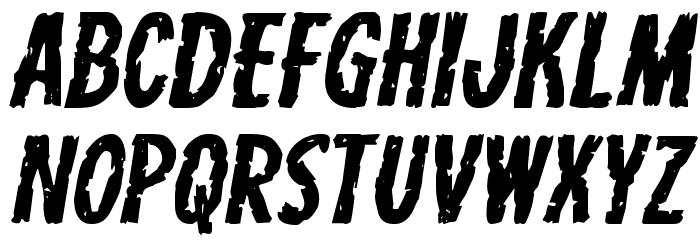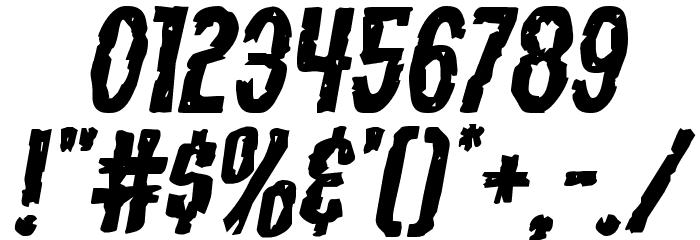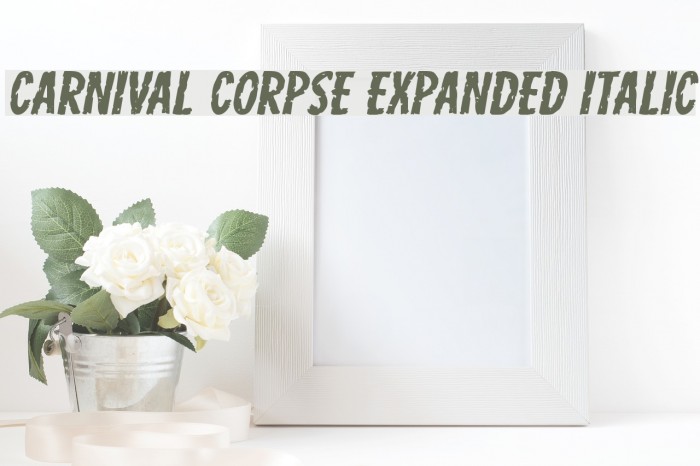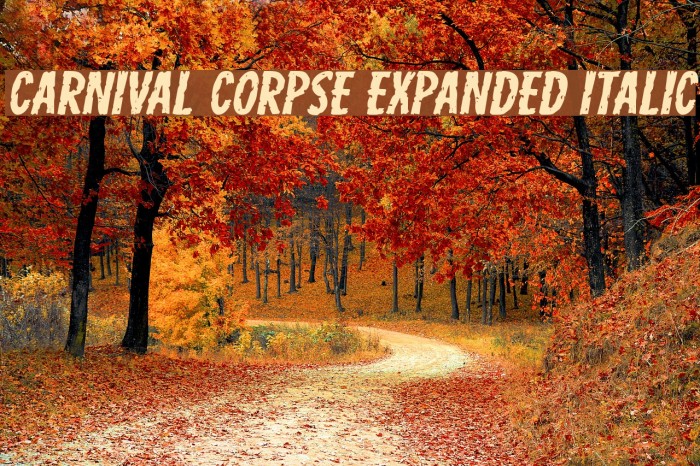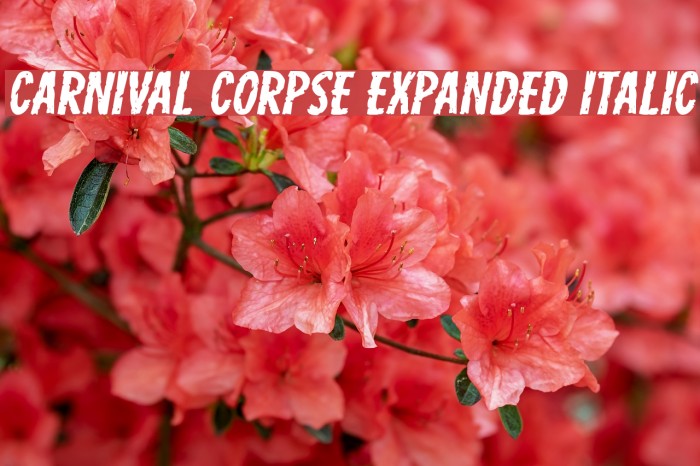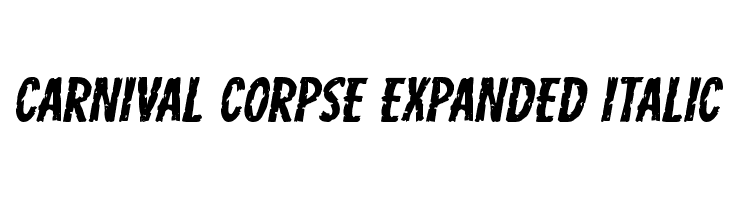
Carnival Corpse Expanded Italic Font
This font features a bold and distressed style, characterized by its rough, textured edges and dynamic slant. The letters are designed with an expanded width, giving them a commanding presence. The italicized form adds a sense of movement and urgency, making it ideal for eye-catching designs. Each character maintains a consistent rugged appearance, with varying stroke thickness that enhances its dramatic effect. The overall look is both edgy and artistic, suitable for projects that require a bold statement.
A bold, distressed, and italicized font with an expanded width and rugged texture.
- Proposed Projects: Ideal for horror-themed posters, edgy branding, album covers, and event flyers.